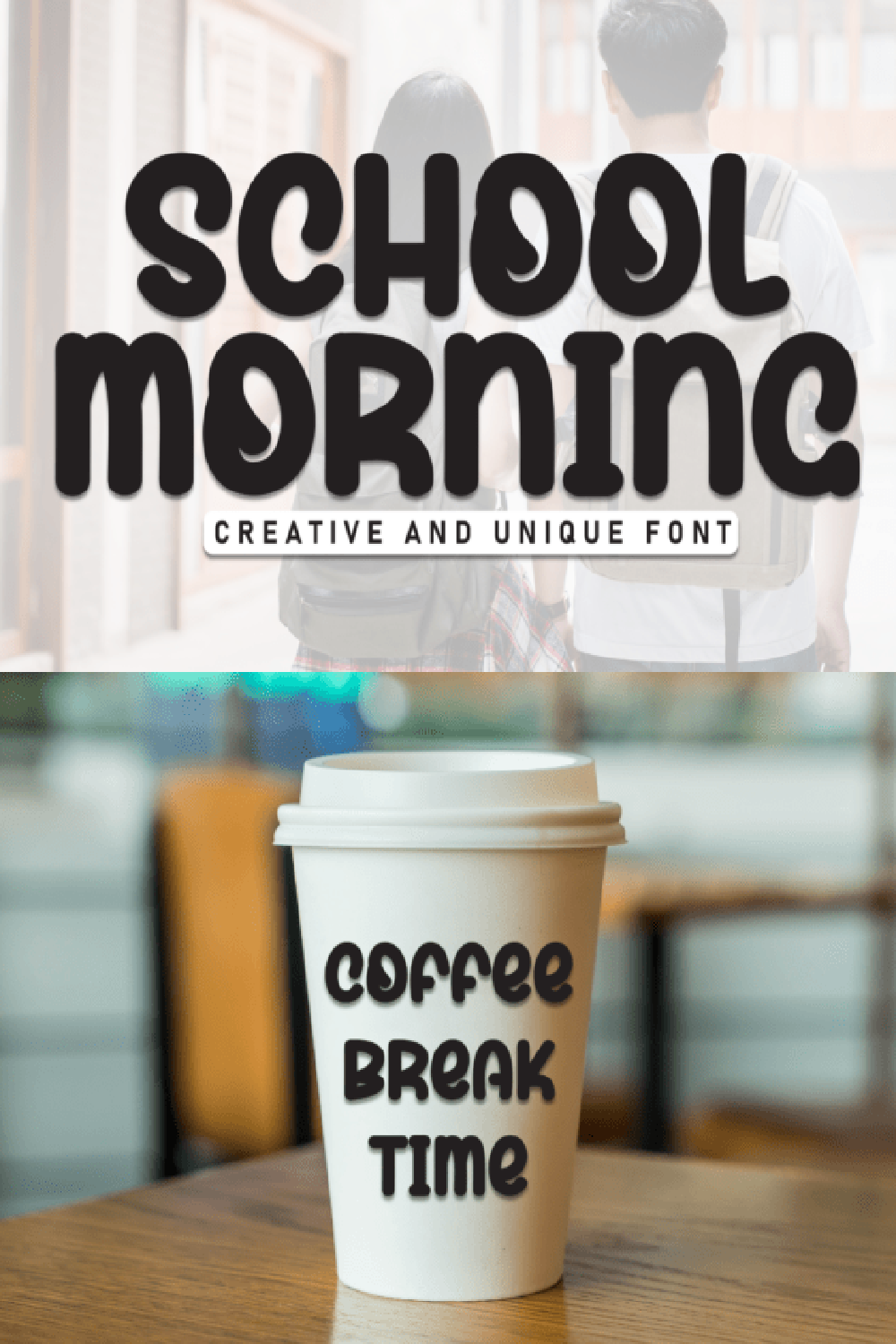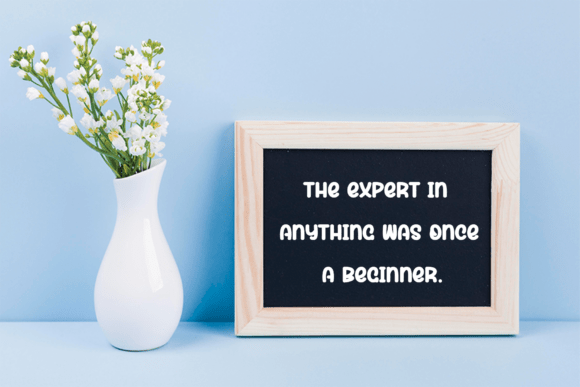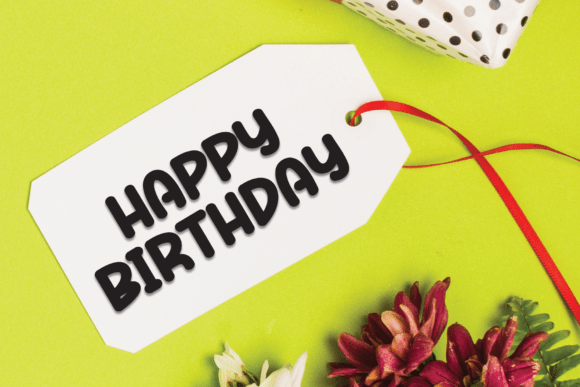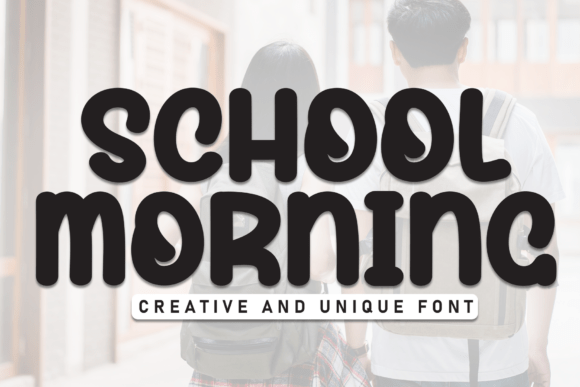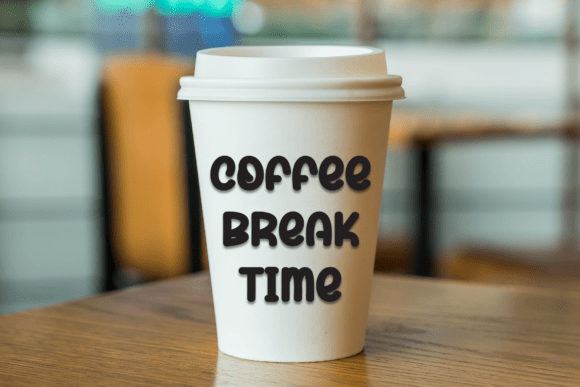
School Morning Font: A Playful Display Font for Social Media Design
About the School Morning Font
Step up your design game with School Morning Font, a font that exudes confidence and style. School Morning is a casual and neat display font that radiates a fresh, friendly vibe. With clean lines and a relaxed structure, it’s perfect for packaging, posters, and social media graphics. The approachable design adds charm and clarity to projects while maintaining a polished appearance.
School Morning Font Usage Examples